Fonts Similar To Caslon Graphique
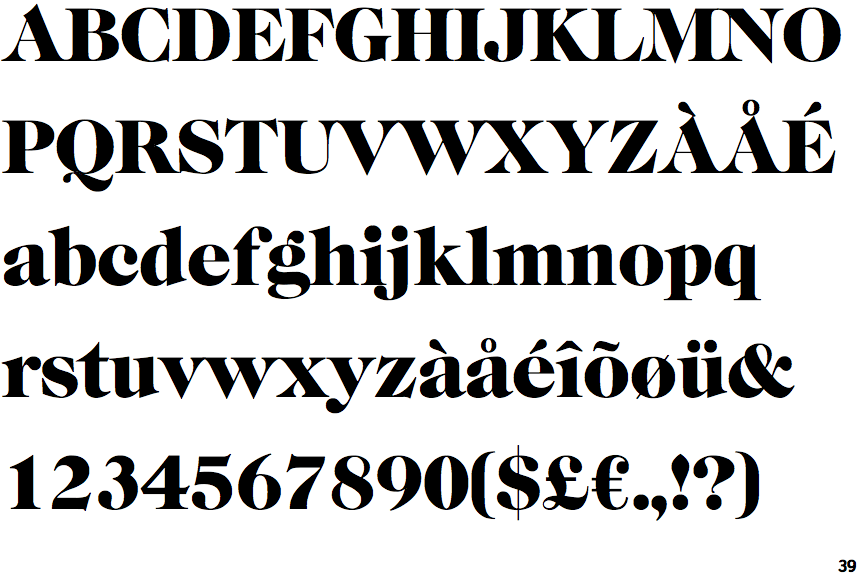
The basic forms are close to the original caslon, but this version has wide heavy forms with very high contrast between the hairline thin strokes and the. Websites using the typeface caslon with personal recommendations for similar web fonts, suggested font pairings and the closest free alternative. About caslon graphique regular font.
Caslon Graphique Is An Extra Bold, “Fat Face” Style Of Caslon.
What fonts are similar to caslon graphique std (d)? The basic forms are close to the original caslon, but this version has wide heavy forms with very high contrast between the hairline thin strokes and the. Purchase through this link to help support typewolf.